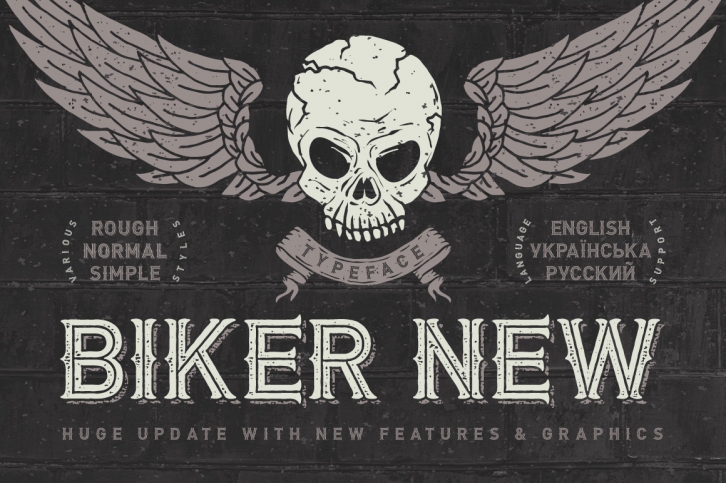
Biker Remastered + graphics is a beautiful font that was designed by Gleb Guralnyk. It's a great choice for designers and creatives who need such a font. It was released on May 16, 2016 and the file size is 10.78 MB. Biker Remastered + graphics may give a more youthful, expressive and casual look to your project. It is a very beautiful, refined, elegant, and high-quality font.